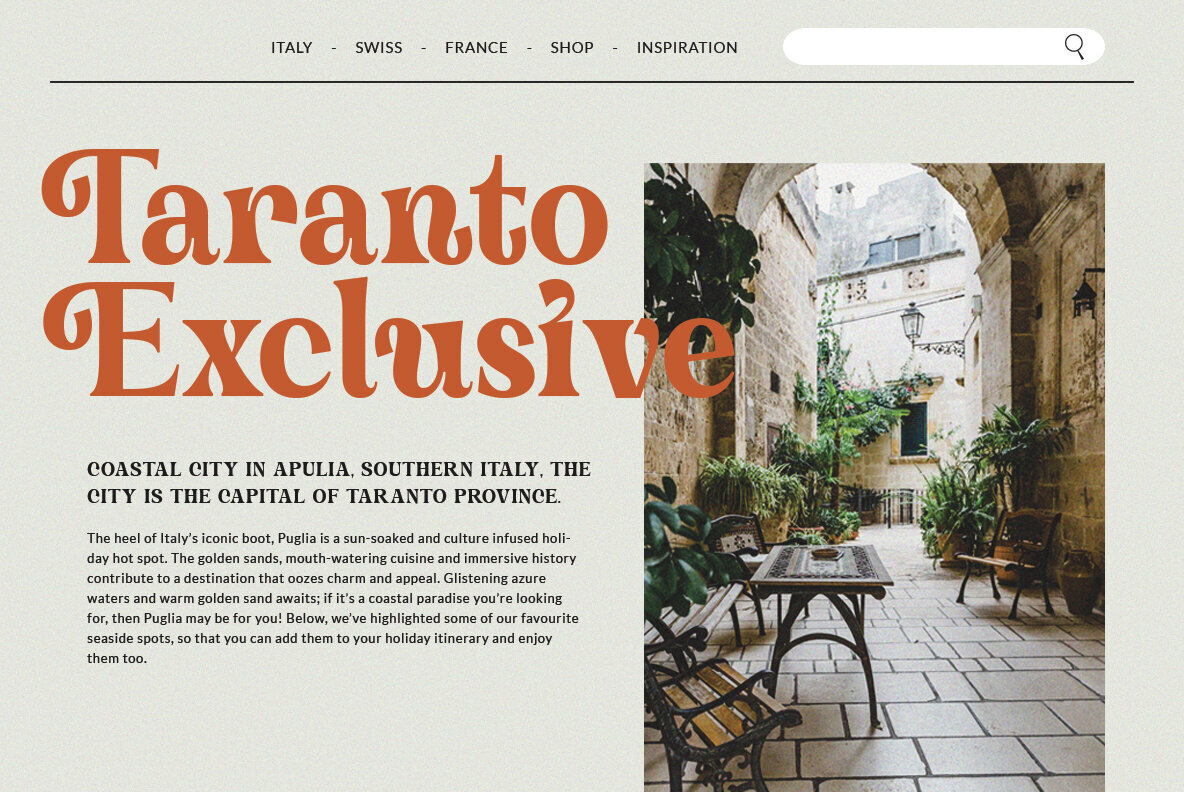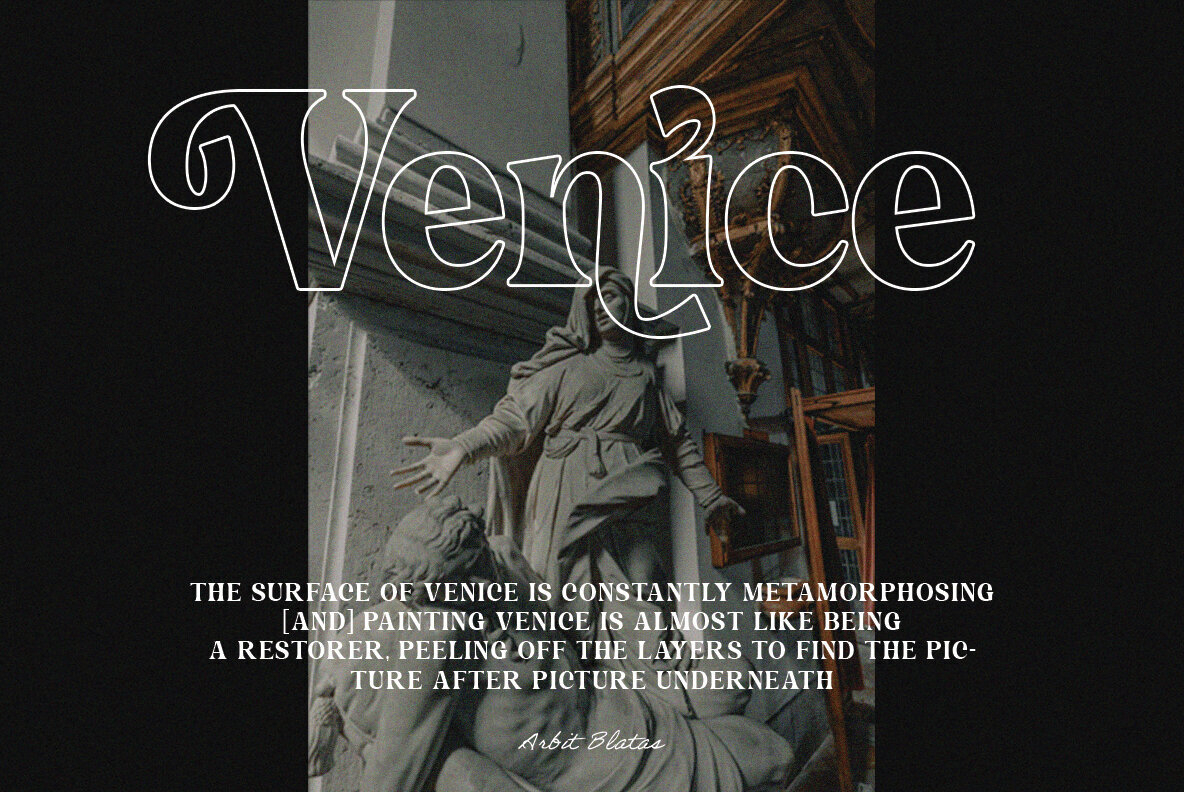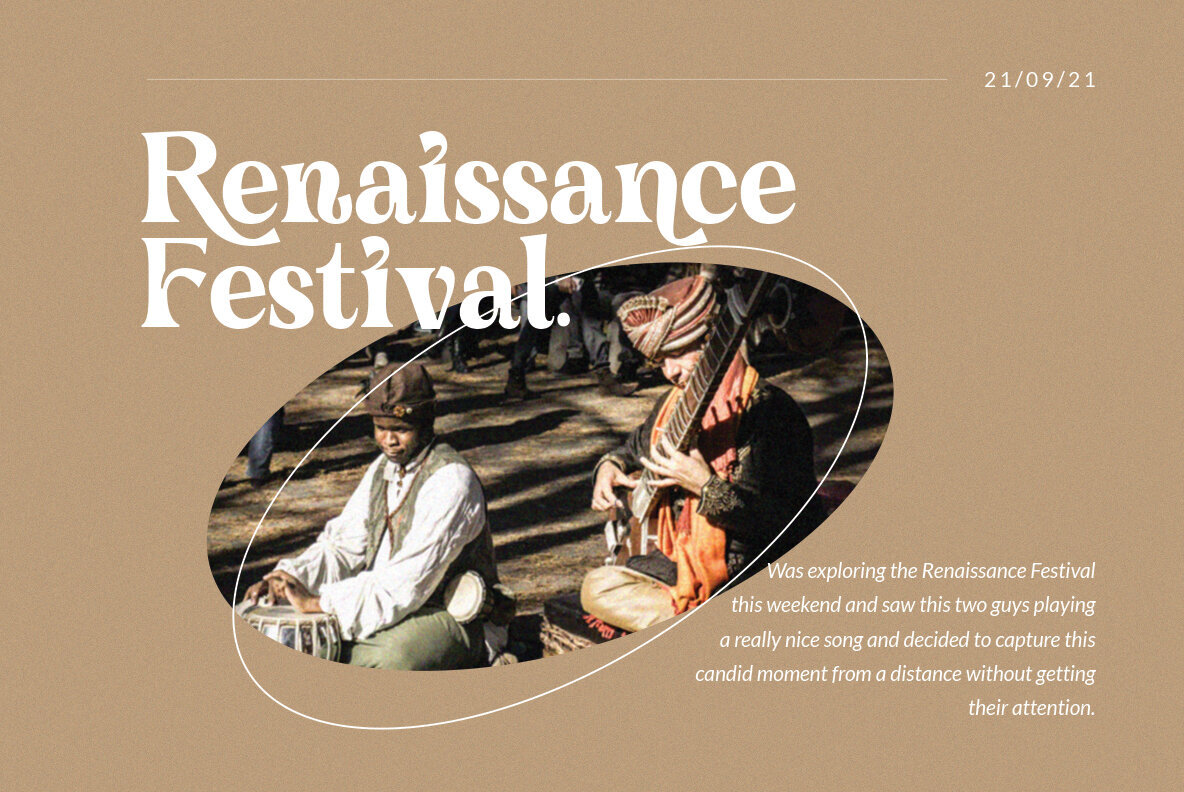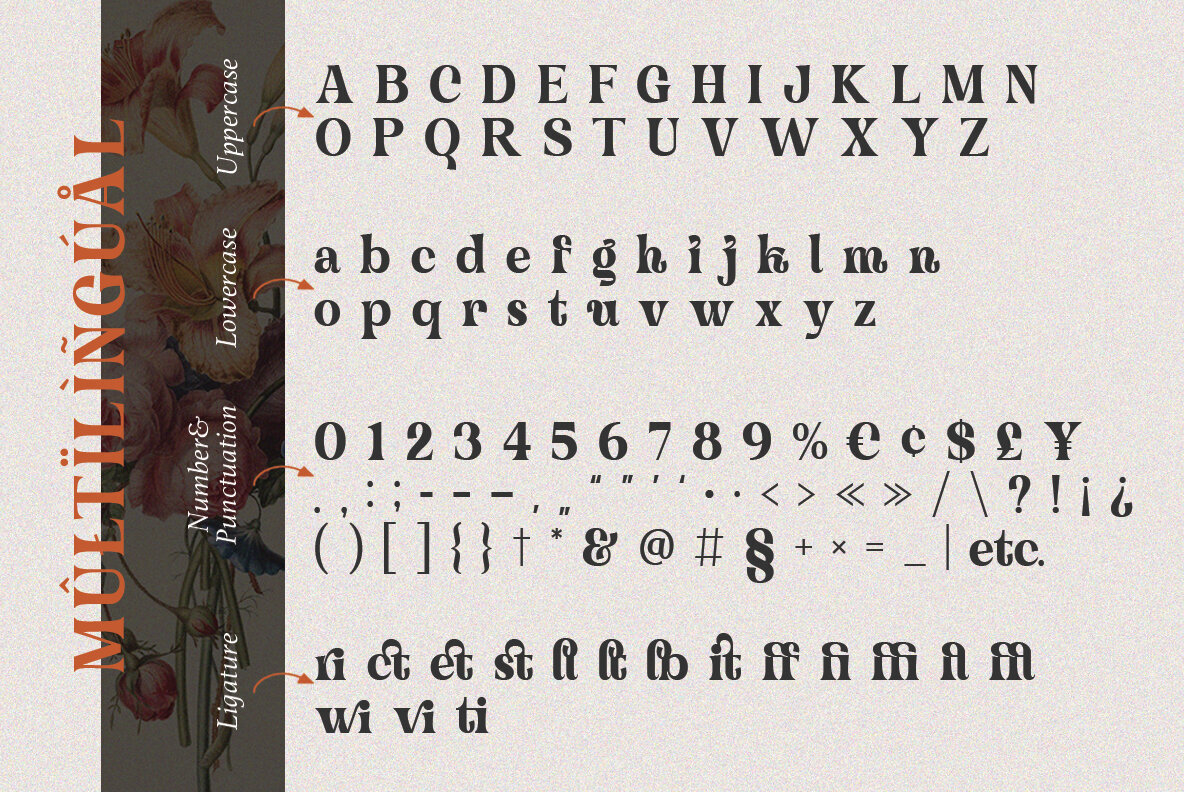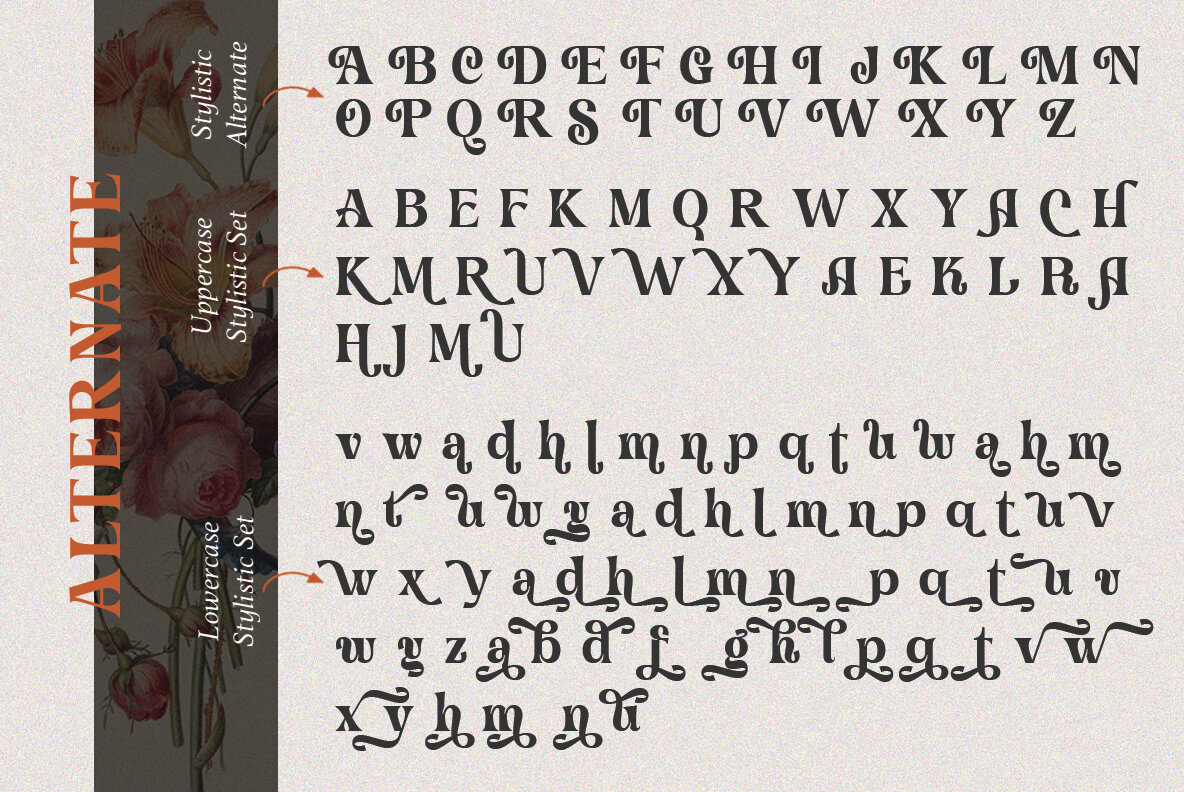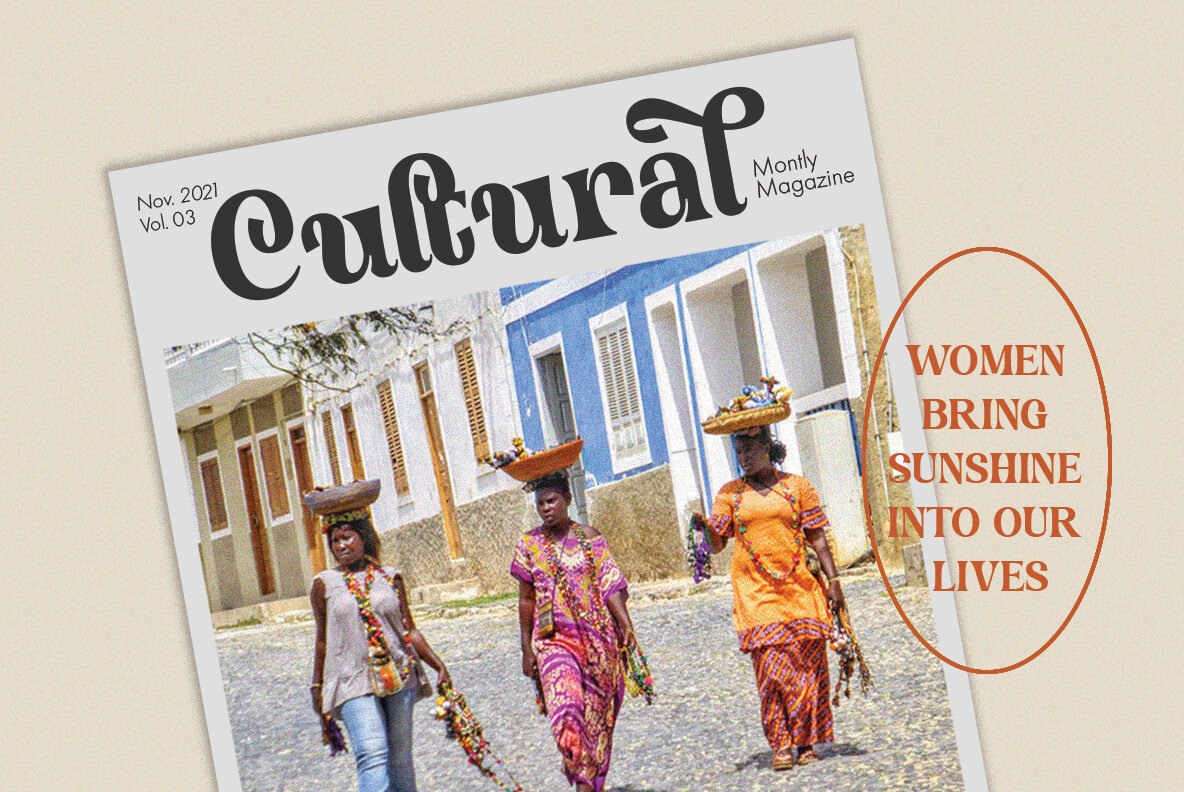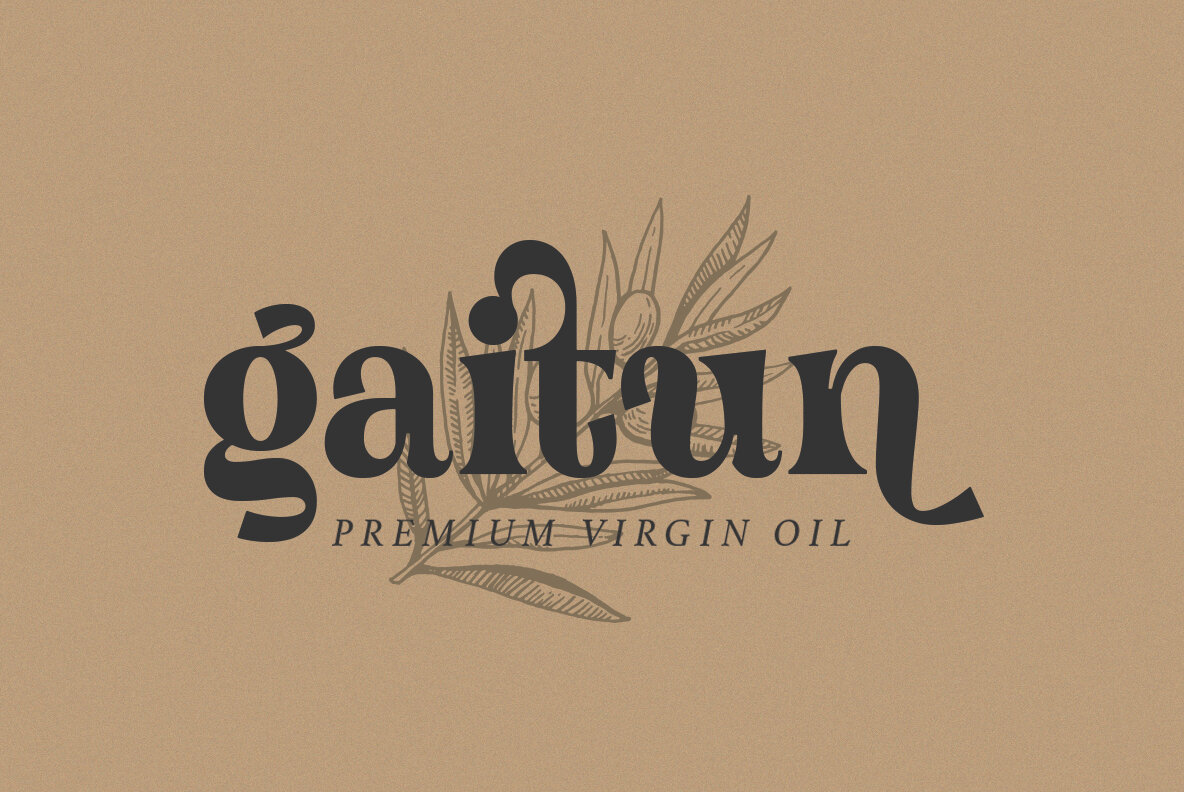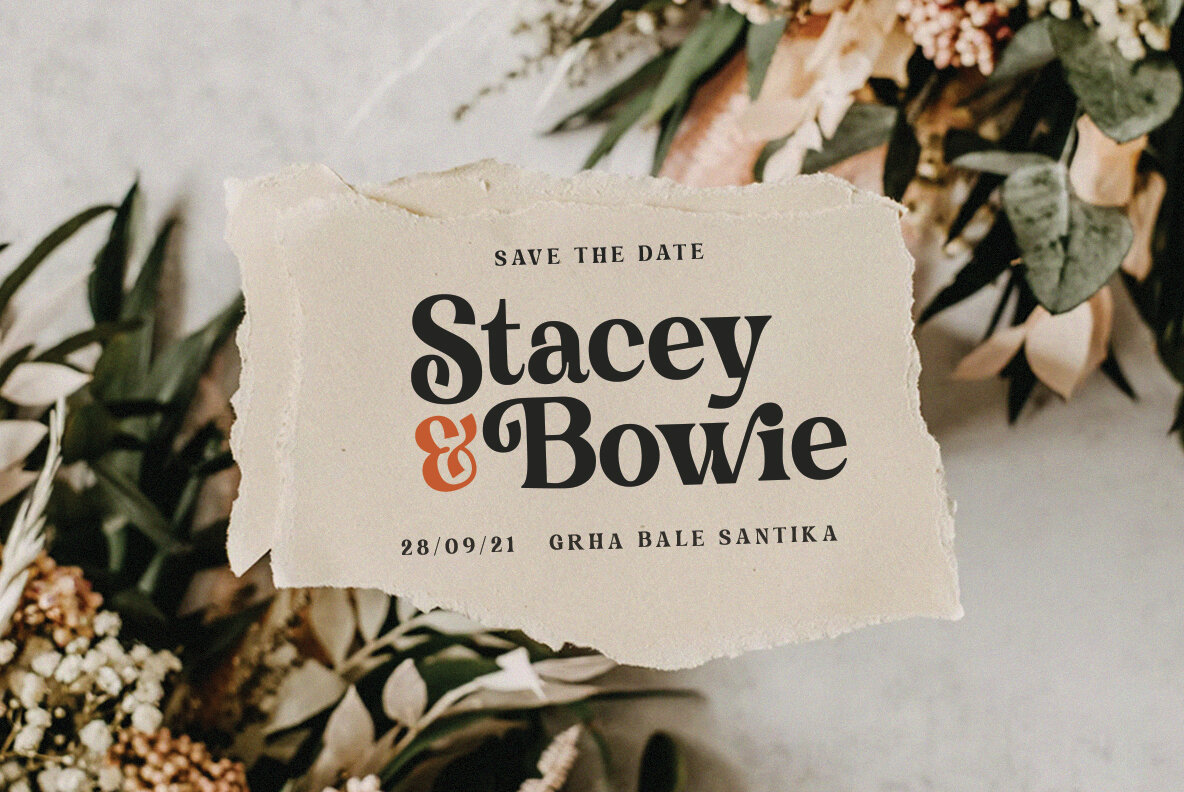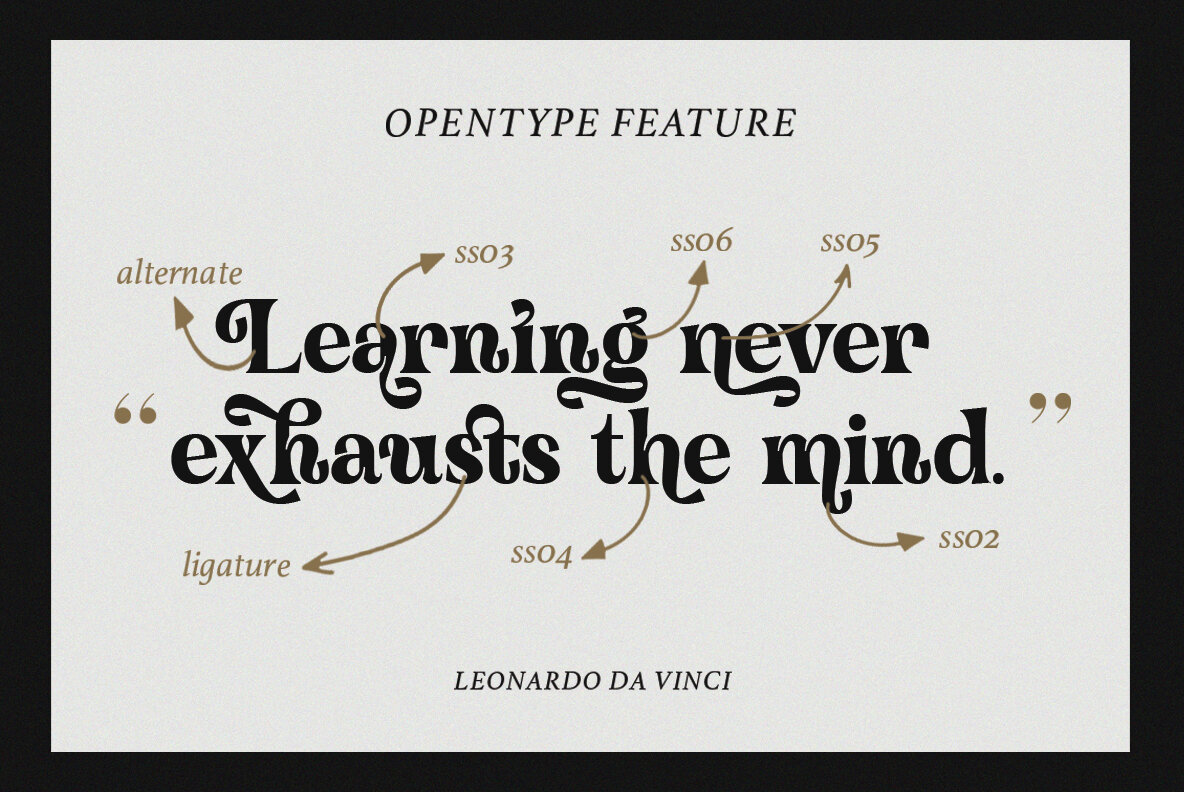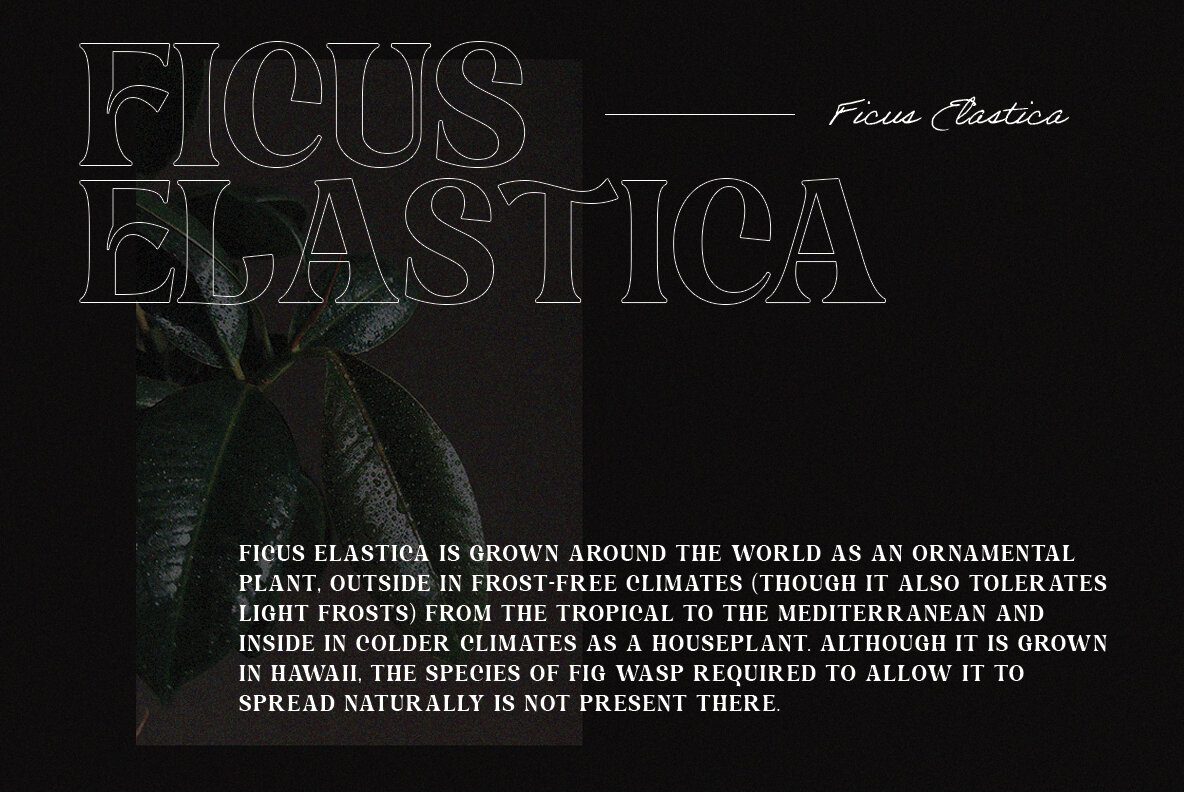
Trinstam Font
Trinstam
Trinstam offers a unique blend of modern sophistication and classical elegance in a serif typeface. Its clear and solid design makes it an adaptable choice for various applications, ranging from large headlines to intricate logos. Whether utilized in editorial projects, branding endeavors, or as an overlay on imagery, Trinstam provides a seamless integration of style and functionality. Beyond its aesthetic appeal, Trinstam is PUA encoded, enhancing creative possibilities with over 120 unique alternative glyphs and ligatures. This feature ensures each project can achieve a distinct and timeless look, making it particularly suitable for logos, clothing branding, and product packaging.Trinstam: Bold Serif with a Classic Edge